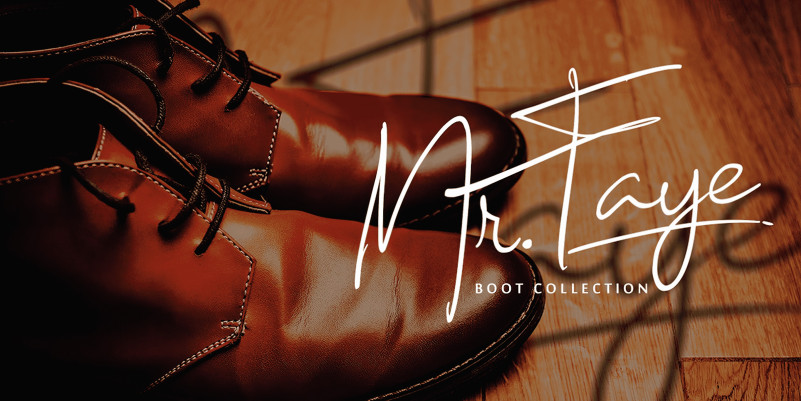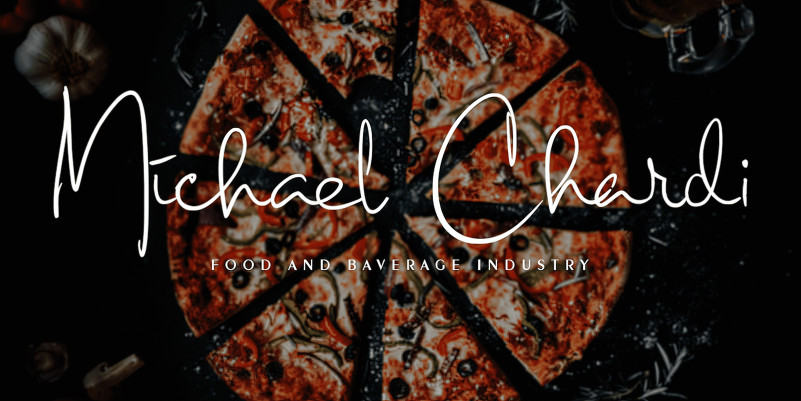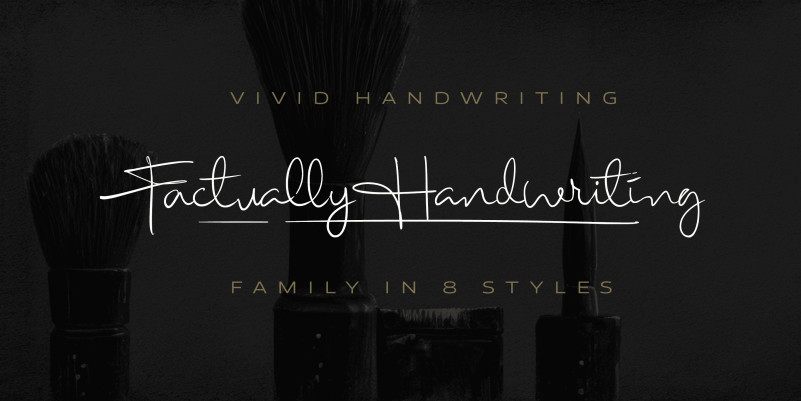
Factually Handwriting Font
Factually Handwriting Font, This handwritten font has a rustic, adventurous feel – the energetic flow of this script is sure to give your next design an air of refined authenticity.
Use undercore _ anywhere in a to make a swash.
Example: Hand_Signature
Use multiple underscores to make different swashes.
Example: Candy___Bars
Use * to make flowers!
Beautiful*Spring
Blue***Roses